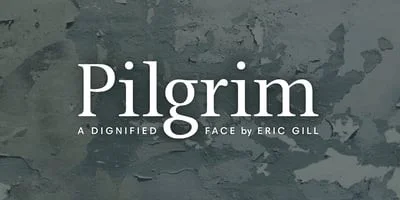
Pilgrim Font
Pilgrim Font is perfectly designed for spiritual retreat branding, religious institution materials, meditation center logos, pilgrimage travel guides, sacred book covers, monastery publications, spiritual wellness brands, and contemplative designs requiring reverent sophistication and peaceful character.
Pilgrim Font generates excitement through its sacred journey aesthetic and contemplative character that embodies the spiritual quest for enlightenment and inner peace. This typeface captivates with its humble elegance and meditative flow, bringing authentic spiritual atmosphere while maintaining contemporary readability for modern faith-based communications.
Pilgrim Font family includes devotional variations: Regular, Bold, Light, Condensed, and Illuminated styles. Additional sacred symbols, decorative initials, and spiritual ornaments provide designers with extensive options for creating reverent typographic compositions that honor religious traditions while embracing contemporary spiritual expression.
The spiritual authenticity of Pilgrim Font makes it essential for projects demanding sacred character and contemplative appeal. This versatile typeface seamlessly combines traditional religious typography with modern design functionality, delivering exceptional performance in both digital platforms and printed materials where spiritual connection drives meaningful communication.
Faith communities consistently choose Pilgrim Font for communications requiring spiritual authority and peaceful presence. Its contemplative character makes it perfect for churches, meditation centers, spiritual retreat facilities, and religious organizations where reverence and tranquility create sacred experiences. The font's versatile nature ensures blessed performance across all spiritual applications.
Embark on typographic pilgrimage with Pilgrim Font and discover how this exceptional typeface brings spiritual sophistication and sacred character to every project, creating meaningful brand communications that honor religious traditions while inspiring contemporary audiences seeking spiritual connection and inner peace.